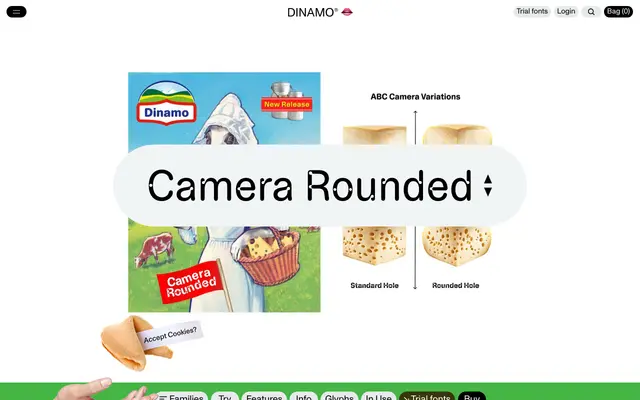
ABC Camera Rounded
The rounded sibling of ABC Camera, taking the same TV light-trap concept into a softer terminal treatment with hole, plain and mono cuts.
A rounded grotesque by Johannes Breyer, Fabian Harb, Fabiola Mejia and Sascha Bente that takes the Camera concept, scaled-up TV light traps, into softer terminals. Hole and Plain versions sit alongside Mono cuts across five weights with italics. Useful where a tech-leaning grotesque needs to read warmer without losing its screen-era reference.
Dinamo describes Camera Rounded as the rounded sibling of ABC Camera, sharing the light-traps concept (scaled up as holes) with a softened terminal treatment, available as Camera Rounded, Camera Rounded Plain and matching Mono cuts.